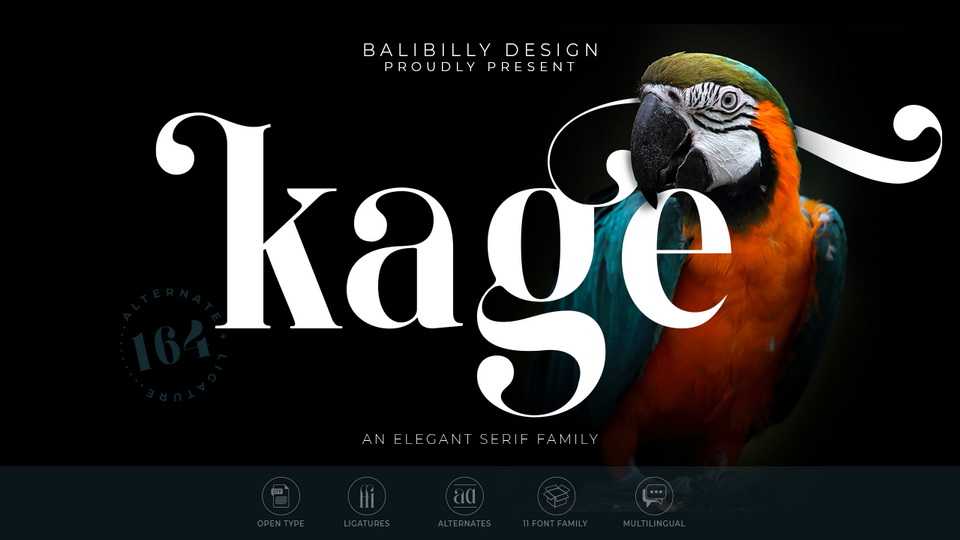
Download Kage font, an elegant and unique serif typeface with beautiful decorative elements. The idea if Kage was to incorporate some of the edgiest looks of modern luxury fashion.
Designer: Balibilly Design